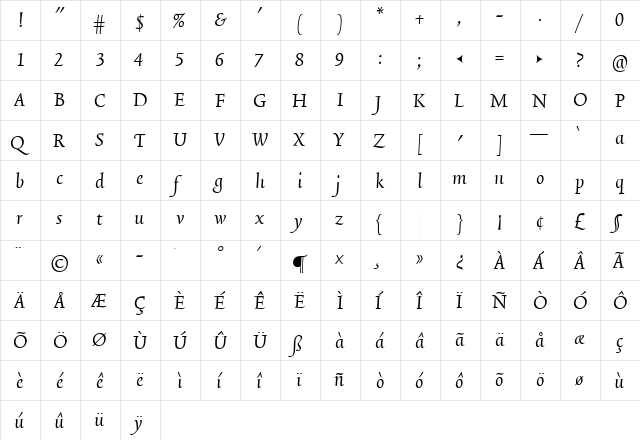
TriniteNo2 Medium
| Foundry | Copr. The Ensched Font Foundry |
Design Context for TriniteNo2 Typeface
TriniteNo2 takes a measured approach to typography — its balanced proportions and neutral character make it a reliable workhorse for both digital and print work.